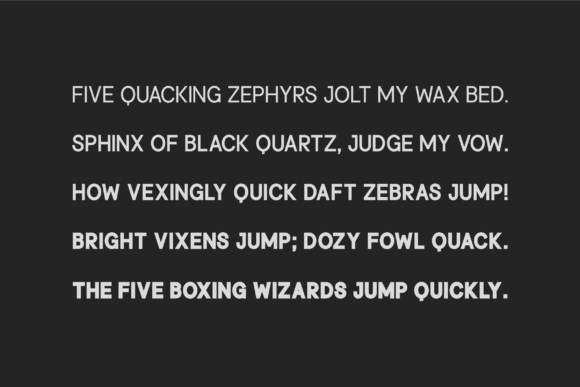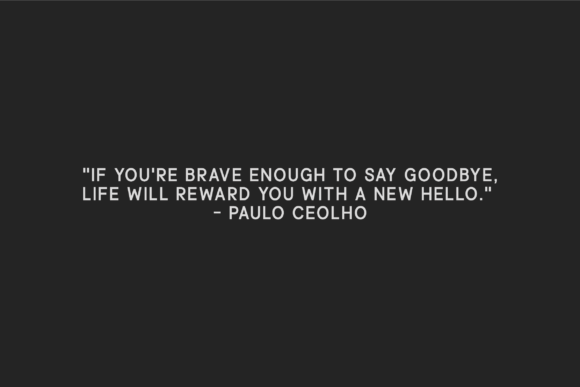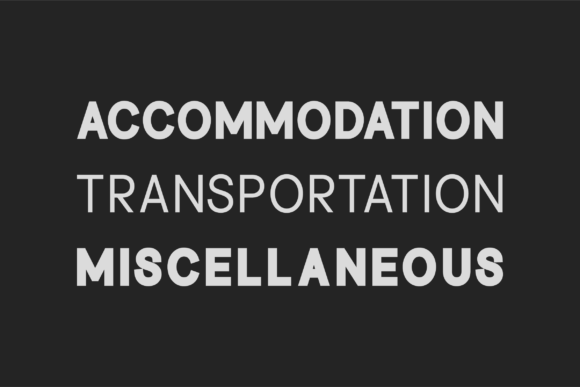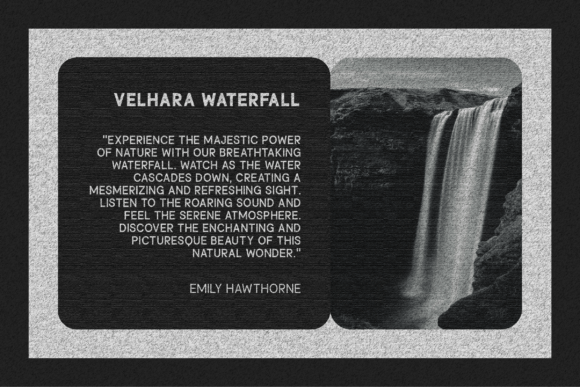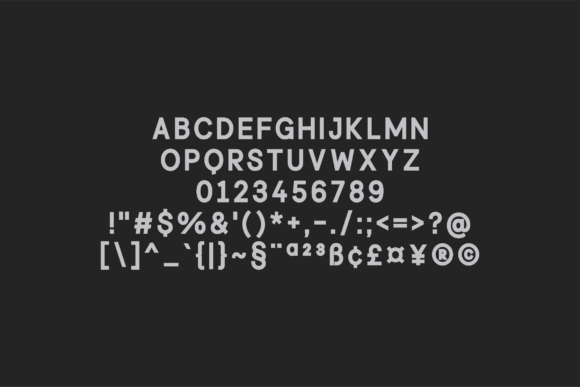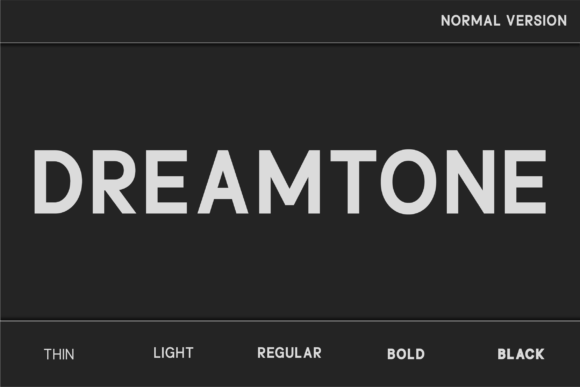
Dreamtone Font: Elevate Your Designs with Timeless Elegance
In the world of typography, a well-crafted font can make all the difference in elevating a design from ordinary to extraordinary. Introducing Dreamtone, an exquisite sans serif font that embodies the perfect balance of sophistication and simplicity. With its precise lines and elegant curves, Dreamtone is the ideal choice for designers and crafters looking to add a touch of timeless charm to their projects.
The Essence of Dreamtone
Dreamtone is more than just a font – it’s a design statement. Crafted with utmost precision, this sans serif font boasts a unique blend of modernity and classic appeal. Its clean lines, subtle curves, and carefully balanced proportions make it an versatile choice for a wide range of applications, from magazine layouts to logo designs, and even film posters.
Key Features of Dreamtone
- Exquisite Sans Serif Design: Dreamtone’s sans serif design ensures that your text remains clear and legible, even at smaller font sizes, making it perfect for body text and headlines.
- Precision Crafted: Every aspect of Dreamtone has been meticulously crafted to ensure that it meets the highest standards of typographic excellence.
- Sophistication and Simplicity: Dreamtone strikes the perfect balance between sophistication and simplicity, allowing your designs to exude a sense of elegance and refinement.
- Timeless Appeal: With its classic design and modern twist, Dreamtone ensures that your designs will remain timeless and relevant for years to come.
Applications of Dreamtone
Dreamtone’s versatility makes it an excellent choice for a wide range of design applications, including:
- Magazine and Editorial Design: Use Dreamtone to create stunning magazine layouts, with its clean lines and elegant curves ensuring that your content stands out.
- Logo Design: Create memorable and impactful logos with Dreamtone, perfect for businesses and brands looking to establish a strong visual identity.
- Film and Movie Posters: Add a touch of sophistication to your film and movie posters with Dreamtone, ensuring that your title and credits stand out.
- Digital and Print Materials: Use Dreamtone across a range of digital and print materials, including brochures, flyers, and website headers.
Why Choose Dreamtone?
With so many fonts available, why choose Dreamtone? Here are just a few reasons why Dreamtone stands out:
- Unique Design: Dreamtone’s unique blend of modernity and classic appeal ensures that your designs will stand out from the crowd.
- High Legibility: Dreamtone’s clean lines and precise design ensure that your text remains legible, even at smaller font sizes.
- Versatility: Dreamtone’s versatility makes it an excellent choice for a wide range of design applications.
In conclusion, Dreamtone is an exquisite sans serif font that offers the perfect balance of sophistication and simplicity. With its precise lines, elegant curves, and timeless appeal, Dreamtone is the ideal choice for designers and crafters looking to elevate their designs. Whether you’re working on a magazine layout, logo design, or film poster, Dreamtone is sure to add a touch of elegance and refinement to your project.